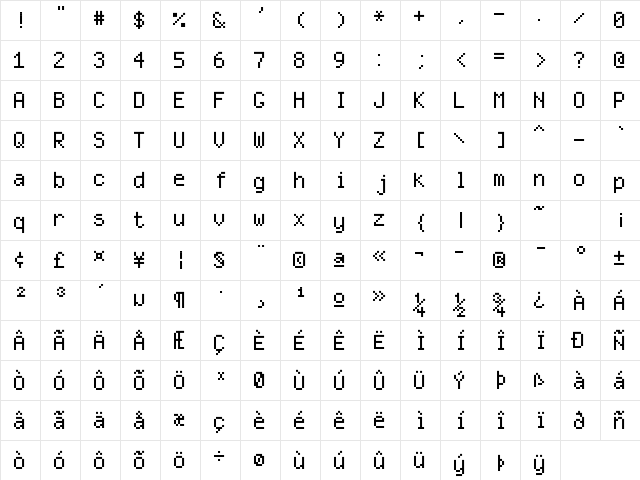
Sydnie Regular
Design Context for Sydnie Typeface
Sydnie takes a measured approach to typography — its balanced proportions and neutral character make it a reliable workhorse for both digital and print work.